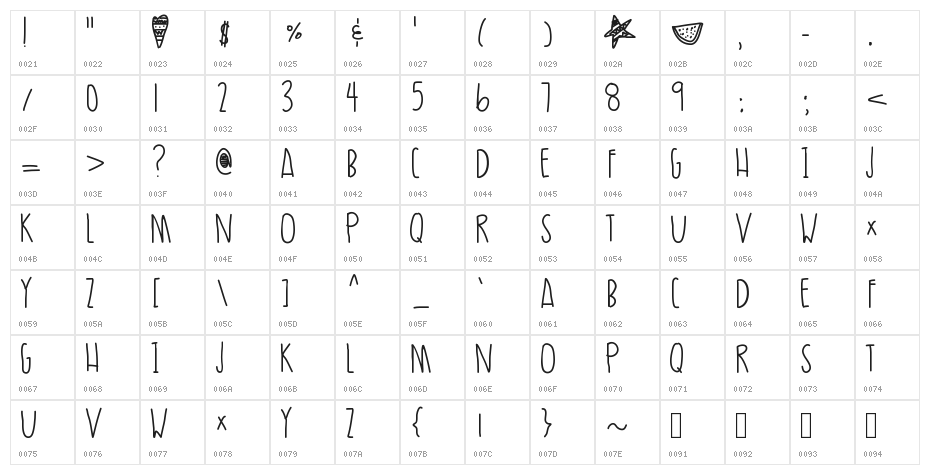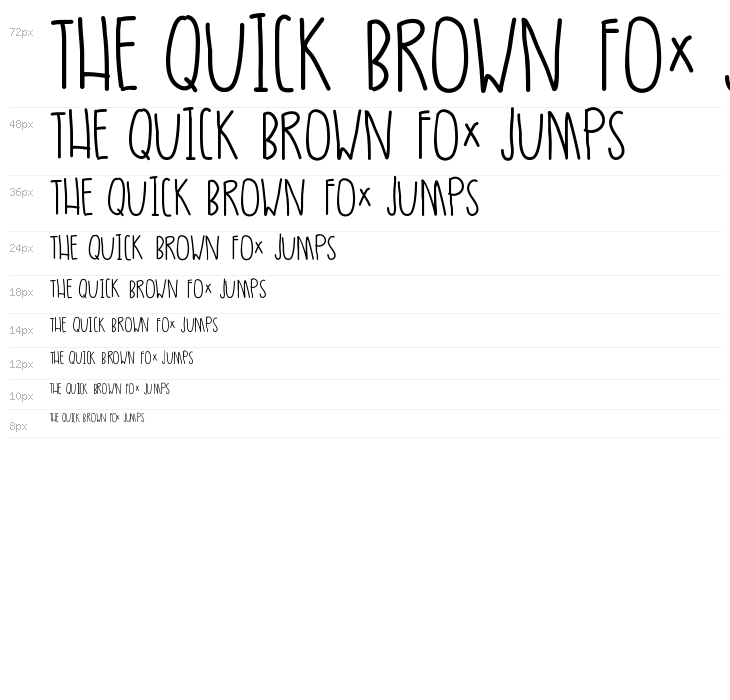
UltraMoire Font
UltraMoire Description
This playful and whimsical font features a handwritten style with tall, narrow letters that convey a sense of casual elegance. The characters are slightly irregular, adding a personal touch and charm to the text. The uppercase and lowercase letters maintain a consistent height, while the numbers and special characters complement the overall style with their quirky design. The font's thin strokes and minimal contrast give it a light and airy feel, making it suitable for projects that require a friendly and approachable appearance.
| Overall Style | Whimsical |
| Use Case | Logos, Headlines, Informal Text |
| Proposed Projects | Ideal for greeting cards, children's books, casual branding, and playful social media graphics. |